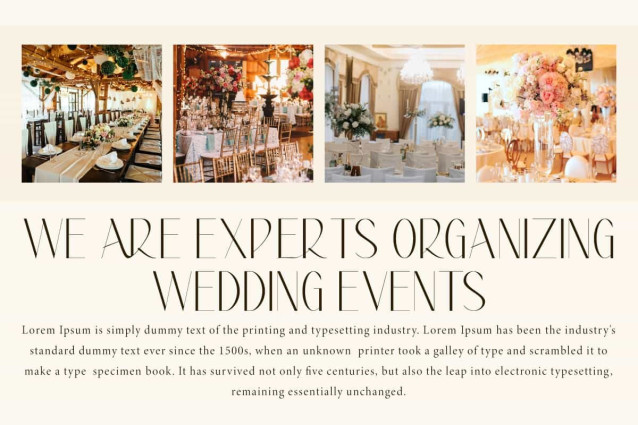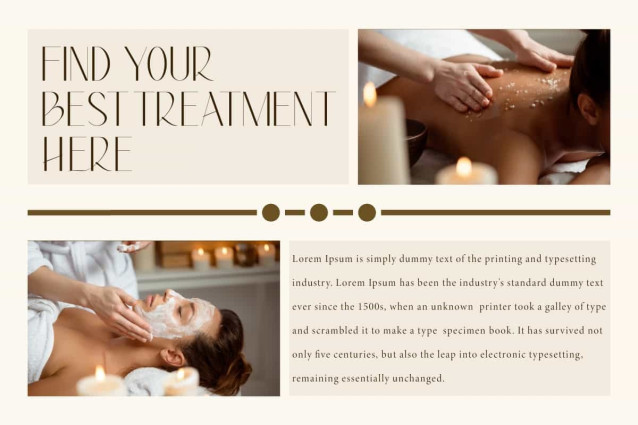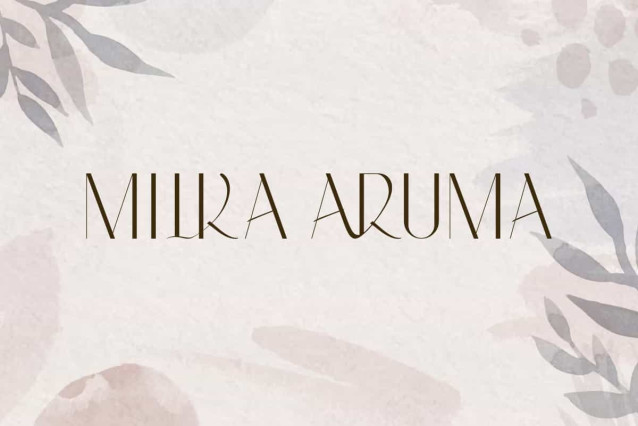
Milka Aruma Font
Milka Aruma Font is a modern sans serif font with an artistic and unique design. Its characteristic sleek lines, combined with subtle curves that create a classy look. This font will be perfect for various projects, such as advertisement, blog, brand image, gift box, invitation, label, layout design, quotes, signboard, template design purpose, website, and many more!
Milka Aruma Font includes full set of Uppercase and Lowercase Basic Characters, Numerals, Punctuation, and Symbol. This font contain Ligature character that give a dynamic impression without losing elegance. Making it a perfect choice for a variety of fields, such as accessories and jewelry, cosmetic, event or wedding organizer, fashion, florist, furniture, real estate, skincare, spa salon, etc.